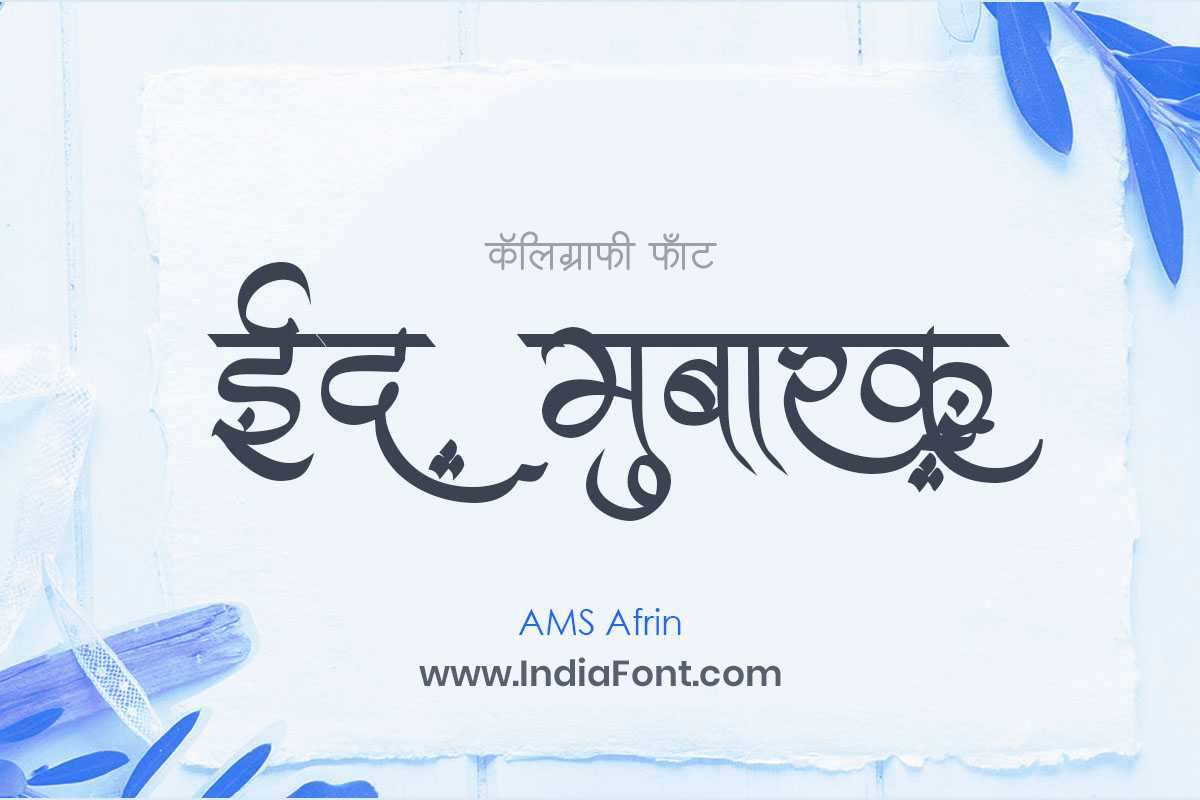
AMS Afrin
AMS Afrin is a meticulously designed font specifically tailored for Hindi and Marathi publications. With its clean and professional look, this font is the perfect choice for books, magazines, newspapers, and other printed materials.
AMS Afrin is a meticulously designed font specifically tailored for Hindi and Marathi publications. With its clean and professional look, this font is the perfect choice for books, magazines, newspapers, and other printed materials. This decorative font combines elegance with functionality, making it perfect for various design applications.
AMS Afrin is a professionally crafted decorative typeface that brings clarity and style to your projects. Designed with attention to detail, it supports hindi and marathi characters flawlessly.
Whether you're working on wedding-materials, invitations, product-packaging, or other creative projects, AMS Afrin delivers consistent performance across both digital and print media. This carefully designed typeface ensures readability and visual appeal in all your design work.
AMS Afrin excels in various design scenarios. Here are the most suitable applications:
AMS Afrin is a professionally crafted decorative font that exemplifies modern Hindi typography design. This free font is perfect for designers seeking versatile design applications.
Available in 1 weight and supporting hindi, marathi scripts, AMS Afrin offers exceptional versatility for both digital and print media. Whether you're working on wedding-materials, invitations, product-packaging, this carefully designed typeface ensures consistent quality and professional results across all your typography projects.